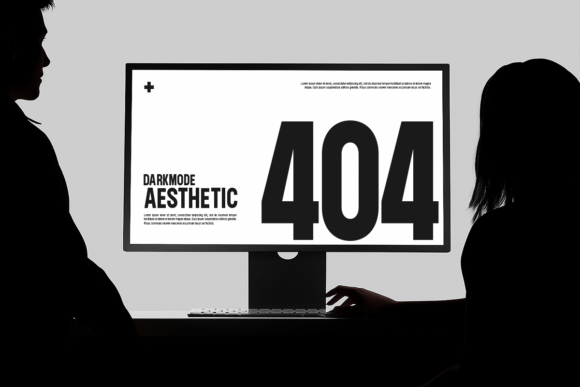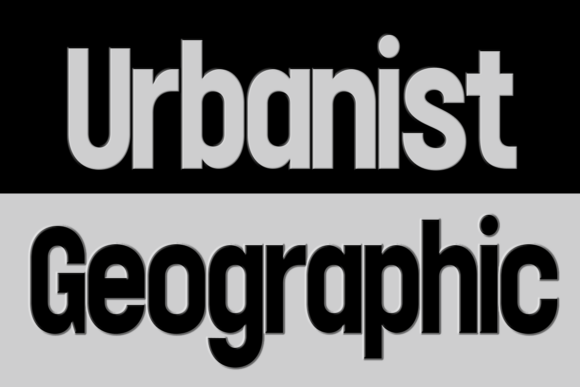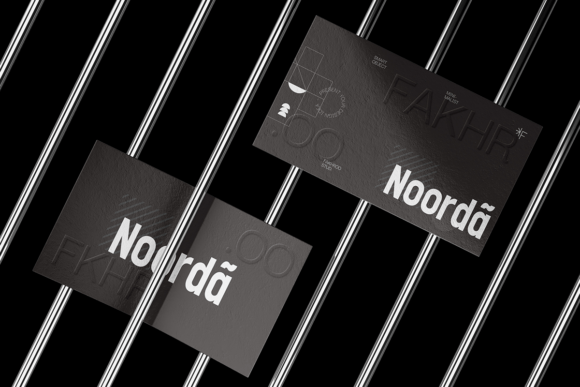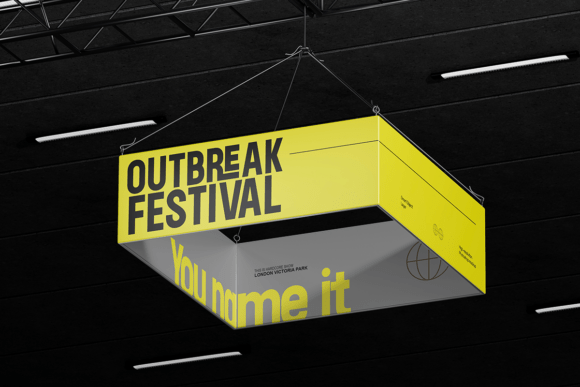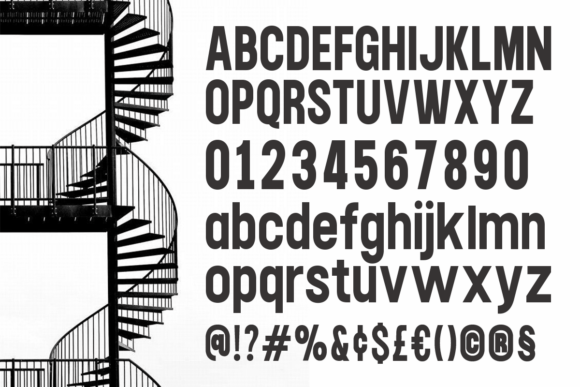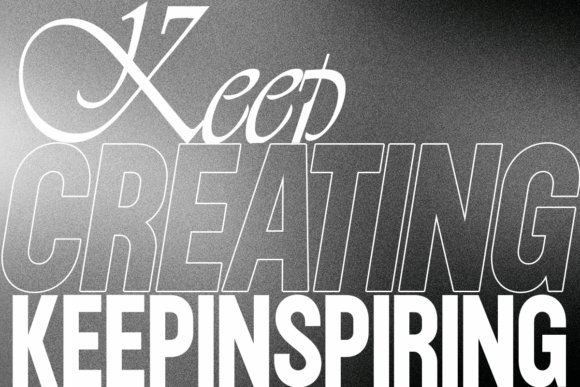
Introducing Good Function: A Bold Modern Geometric Sans Serif Typeface
In the world of typography, a well-designed font can make all the difference in creating a lasting impression. For designers and brands seeking a modern, structured, and professional visual identity, Good Function is an exceptional choice. This bold modern geometric sans serif typeface is designed with precision, clarity, and contemporary balance, making it perfect for a wide range of applications.
Good Function is built on strong structural forms and clean vertical stress, delivering a confident and highly legible appearance. Its rounded curves, compact proportions, and solid stroke consistency create a powerful visual presence while maintaining professional refinement. The font’s geometric design ensures a sense of stability and reliability, making it ideal for brands and designers seeking to establish a strong visual identity.
- Bold and Modern Design: Good Function boasts a bold and modern geometric design, perfect for making a statement.
- High Legibility: The font’s clean lines, precise curves, and optimal letter spacing ensure high legibility, even at smaller font sizes.
- Professional Refinement: Good Function’s design balances power and sophistication, making it suitable for premium brands and high-end applications.
- Versatility: This font works exceptionally well for various design projects, including corporate branding, architecture studios, tech companies, product packaging, editorial magazines, marketing campaigns, UI/UX design, and premium presentation layouts.
Use Cases
Good Function is an incredibly versatile font, suitable for a wide range of design applications. Here are some examples:
- Corporate Branding: Establish a strong and professional visual identity for your company with Good Function.
- Architecture Studios: Use Good Function to convey precision, innovation, and expertise in your architectural projects.
- Tech Companies: Good Function’s modern design and high legibility make it perfect for tech companies seeking a cutting-edge visual identity.
- Product Packaging: Create eye-catching and premium packaging designs with Good Function.
- Editorial Magazines: Use Good Function to add a touch of sophistication and modernity to your editorial designs.
- Marketing Campaigns: Make a bold statement with Good Function in your marketing campaigns.
- UI/UX Design: Good Function’s clean design and high legibility make it an excellent choice for UI/UX design projects.
- Premium Presentation Layouts: Elevate your presentations with Good Function’s professional and modern design.
Why Choose Good Function?
With Good Function, you can:
- Establish a Strong Visual Identity: Create a lasting impression with a bold and modern geometric sans serif typeface.
- Enhance Legibility: Ensure your message is conveyed clearly and effectively, even at smaller font sizes.
- Convey Professionalism: Use Good Function to convey a sense of sophistication, innovation, and expertise.
- Increase Versatility: Apply Good Function to various design projects, from corporate branding to UI/UX design.
Good Function is an exceptional font for designers and brands seeking a modern, structured, and professional visual identity. Its bold geometric design, high legibility, and versatility make it perfect for a wide range of applications. Whether you’re looking to establish a strong corporate brand, create premium packaging designs, or elevate your UI/UX projects, Good Function is an excellent choice.